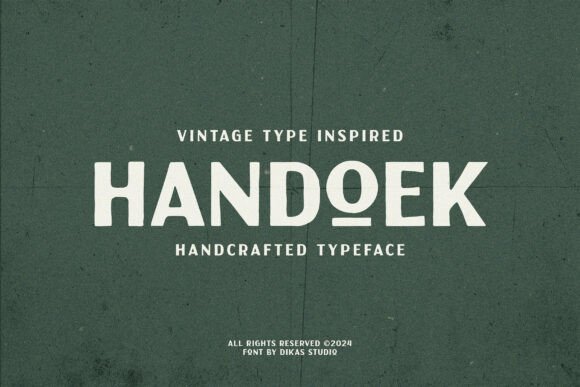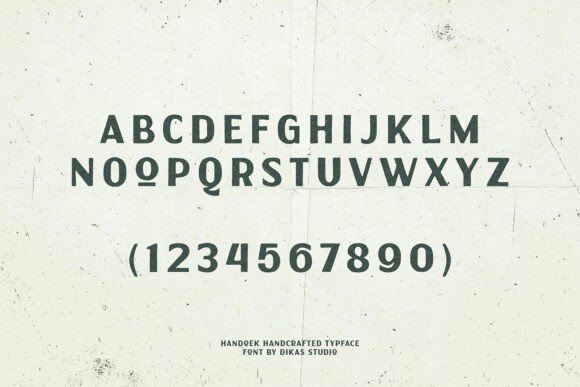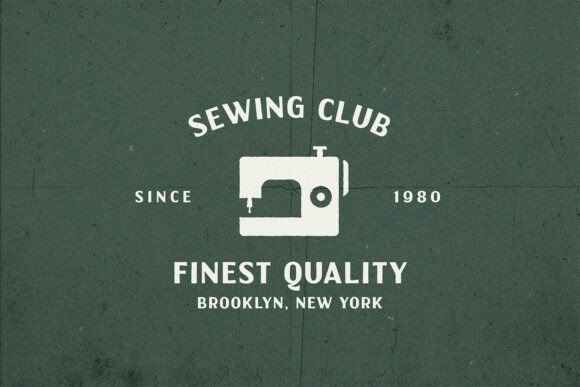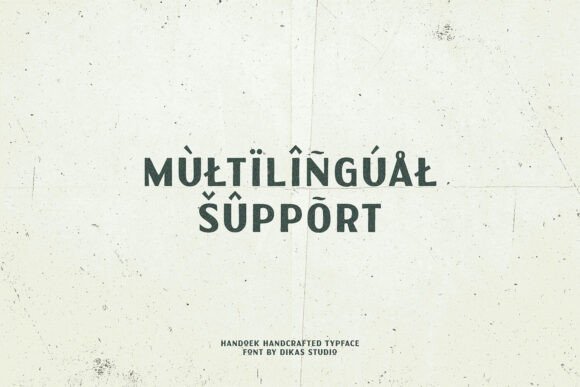
Handoek Font: Vintage Sans Serif for Authentic Logo Design
About the Handoek Font
Let us introduce you to Handoek Font, where timeless design meets modern craftsmanship. Handoek is a sans-serif font with a vintage soul, crafted with a hand-drawn, rough texture that exudes authenticity. Perfect for capturing the nostalgic essence of 70s posters, badge, label or logos, this font adds character and warmth to your retro-inspired designs.
Handoek thrives in headline applications, short text blocks on posters or packaging, and logo design. Its hand-drawn texture adds visual interest to branding projects aiming for a vintage or retro aesthetic. However, its textured nature makes it less suitable for body text or UI elements where high readability is crucial. Long paragraphs set in Handoek would be difficult to read.
The font’s personality is best described as bold and nostalgic, with a touch of playful warmth. It would suit brands evoking feelings of authenticity, craftsmanship, or a vintage vibe.
For effective pairings, consider pairing Handoek with a clean, geometric sans-serif for contrast, or a classic serif like Garamond for a more refined look. A script font like Allura could add a touch of elegance to a logo featuring Handoek.
Handoek Font Usage Examples
Handoek Font Example